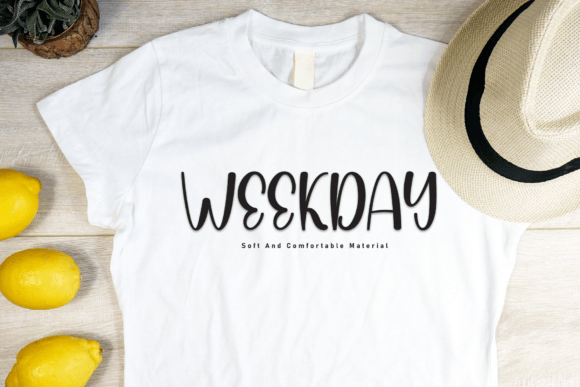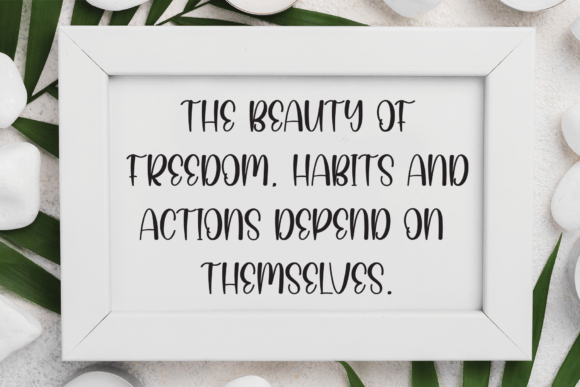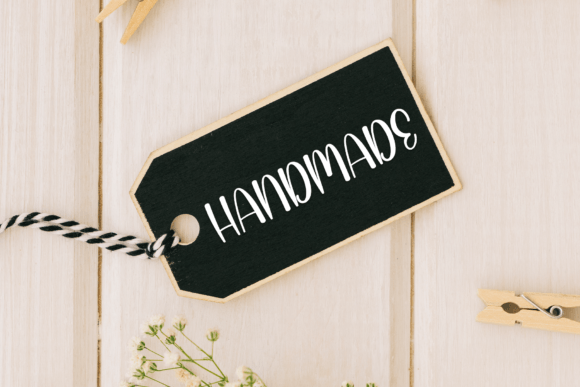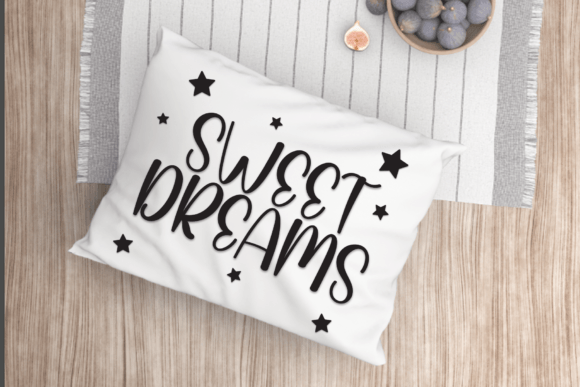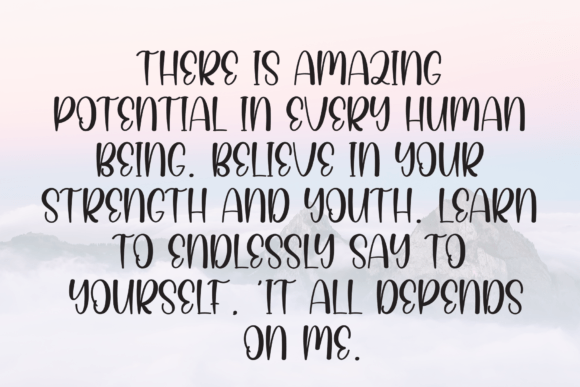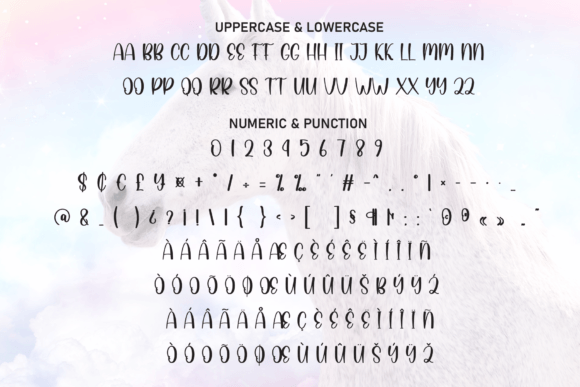
Introduction to Monday Unicorn Font
As designers, we’ve all been there – staring at a blank canvas, trying to conjure up the perfect idea for a creative project. But sometimes, all it takes is one special element to bring everything together. For me, that element is the Monday Unicorn Font. Its whimsical charm and high-quality design make it a game-changer for any project.
With its smooth, flowing strokes and friendly character, the Monday Unicorn Font is perfect for adding a personal touch to your designs. Whether you’re creating invitations, greeting cards, or building a brand, this delightful font is sure to bring warmth and personality to your work. And the best part? It’s a free download, making it a valuable resource for designers of all levels.
Key Features of Monday Unicorn Font
- High-quality design for creative projects and personal use, with a transparent background for easy editing and customization.
- Features a unique, modern design with a touch of whimsy, making it perfect for adding a touch of magic to your creative project.
- Includes a range of sizes and resolutions, from 100 to 500 points, allowing for flexibility and versatility in your design.
- Designed to be easily scalable, making it ideal for use in various design contexts, from print to digital media.
Honest Review: Monday Unicorn Font
I recently stumbled upon the Monday Unicorn Font and was excited to give it a try. As a designer, I’m always on the lookout for high-quality fonts to elevate my creative projects.
- ✨ Beautiful, whimsical design that’s perfect for creative projects
- ✨ Highly versatile font that can be used for a variety of applications
- ✨ Transparent background, making it easy to use on any design
- ⚠️ Limited character set, which may not be ideal for longer text-based projects
- ⚠️ May not be as readable at smaller font sizes
Overall, I’m impressed with the Monday Unicorn Font. It’s a great addition to any designer’s toolkit, especially for creative projects that require a touch of whimsy. While it has some limitations, it’s a high-quality font that’s definitely worth checking out.
To get the most out of the Monday Unicorn Font, try using it in combination with other design elements to create a cohesive look. Experiment with different font sizes and styles to add visual interest to your designs.
The Monday Unicorn Font is perfect for a variety of creative projects, including:
- Typography projects
Alex Brush Font is a high-quality, handwritten font perfect for designers looking for a creative and unique touch for their projects. It features a transparent background and is available for free download. While it shares some similarities with Monday Unicorn Font in its playful feel, Alex Brush Font is more rustic and suitable for use in designs that require a more laid-back, handwritten look.